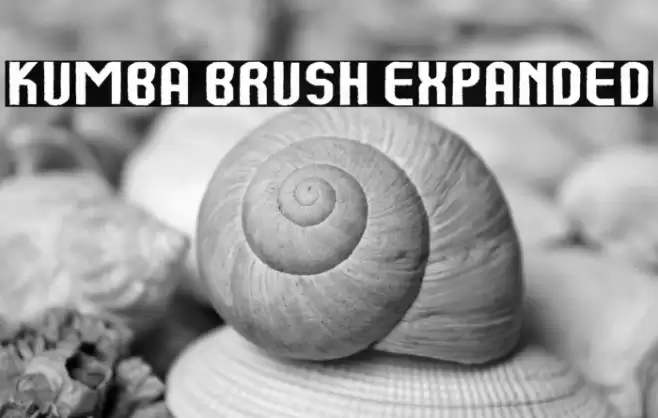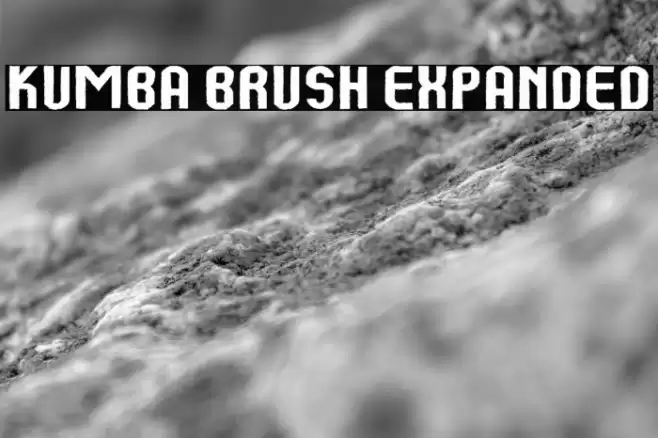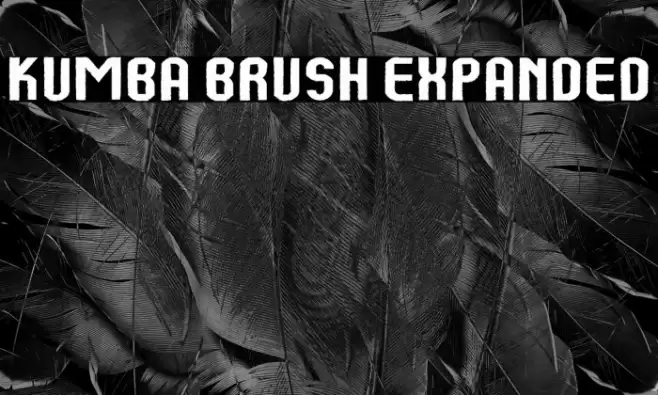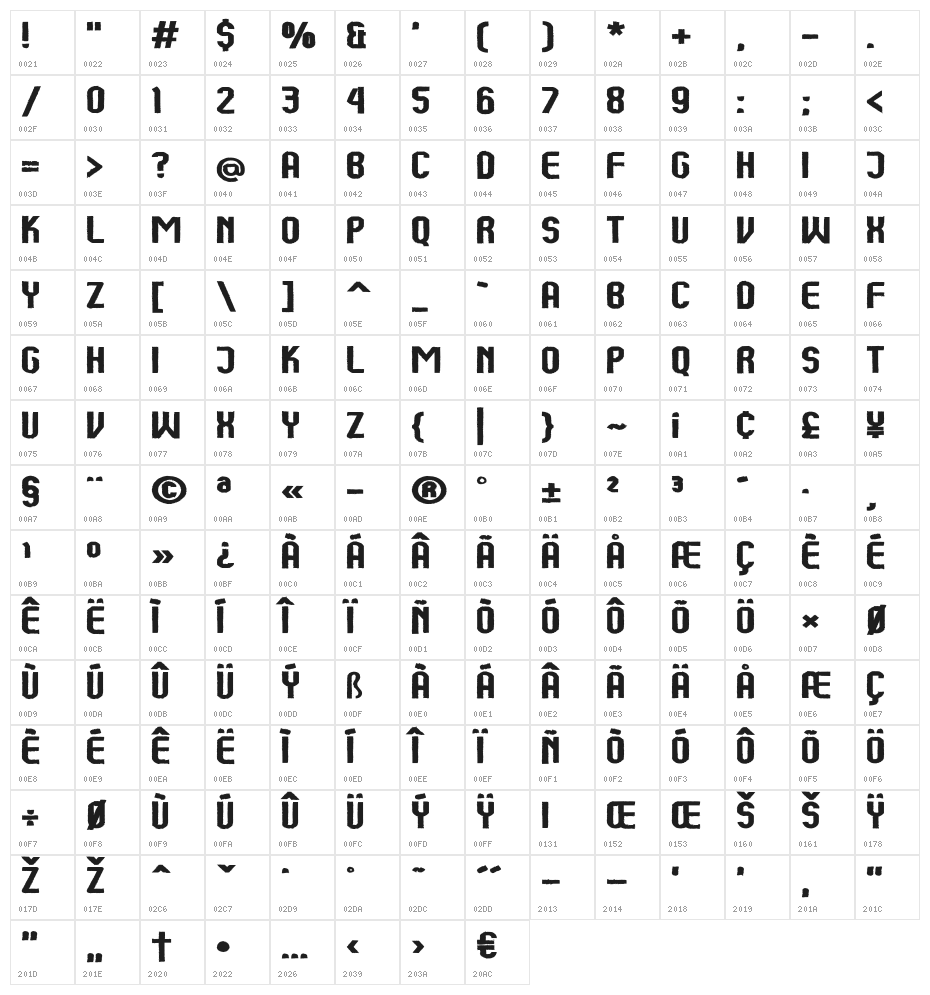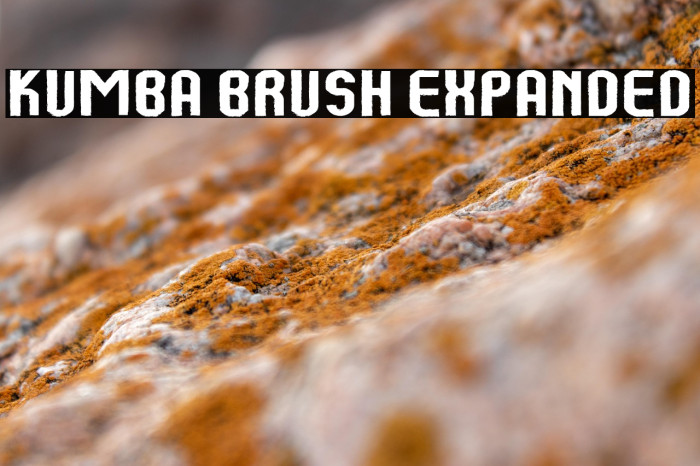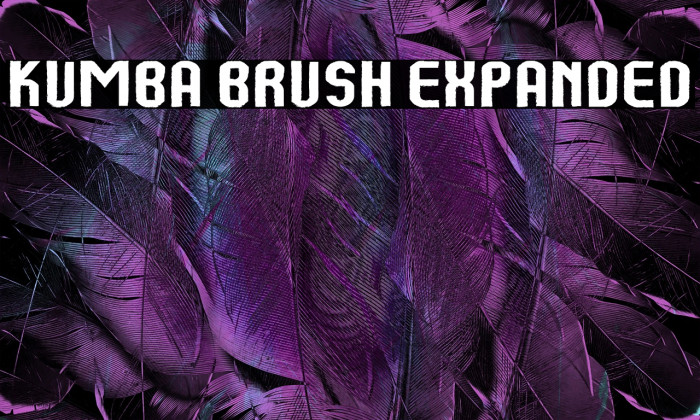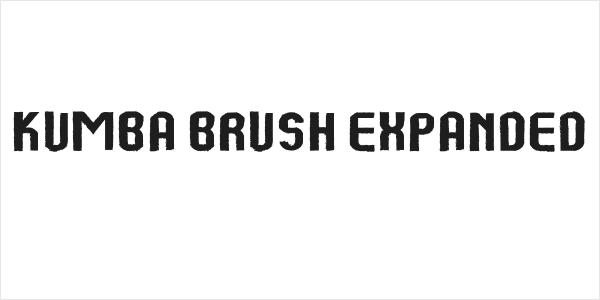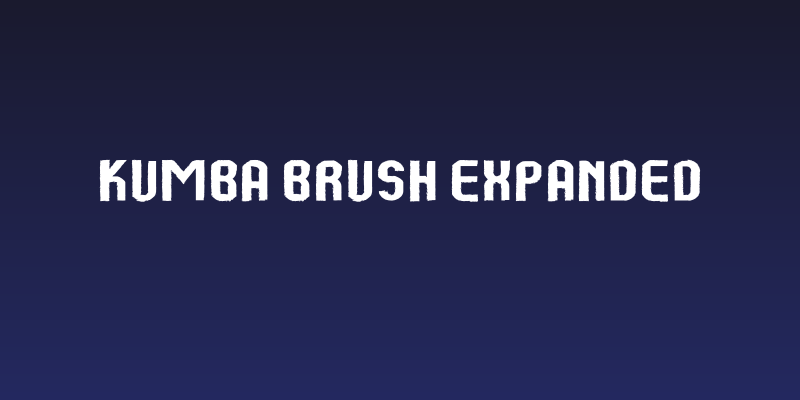
Kumba Brush Expanded Font
Kumba Brush Expanded Description
This font features a bold, brush-like appearance with a distinctly hand-painted style. The characters are robust and slightly irregular, giving them a dynamic and energetic feel. The uppercase letters are uniform in height, while the lowercase letters maintain a consistent baseline, adding to the cohesive look. The numbers and special characters follow the same bold and expressive style, making them stand out. The strokes are thick and have a high contrast, with some edges appearing slightly rough, enhancing the hand-drawn aesthetic. This font is ideal for projects that require a strong, artistic touch.
A bold, brush-style font with a hand-painted, dynamic appearance from Uncategorized fonts.
- Font: Kumba Brush Expanded
- Proposed Projects: Perfect for posters, branding, packaging, and any design needing a bold, artistic flair.